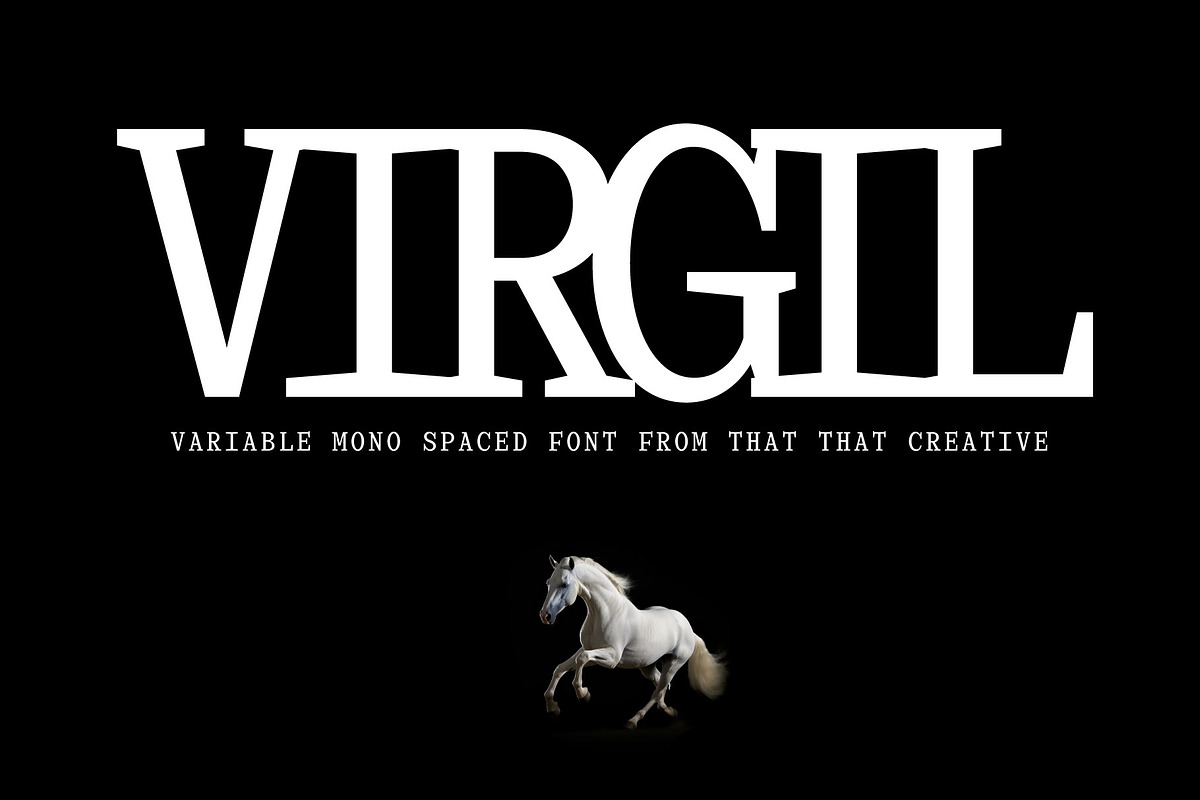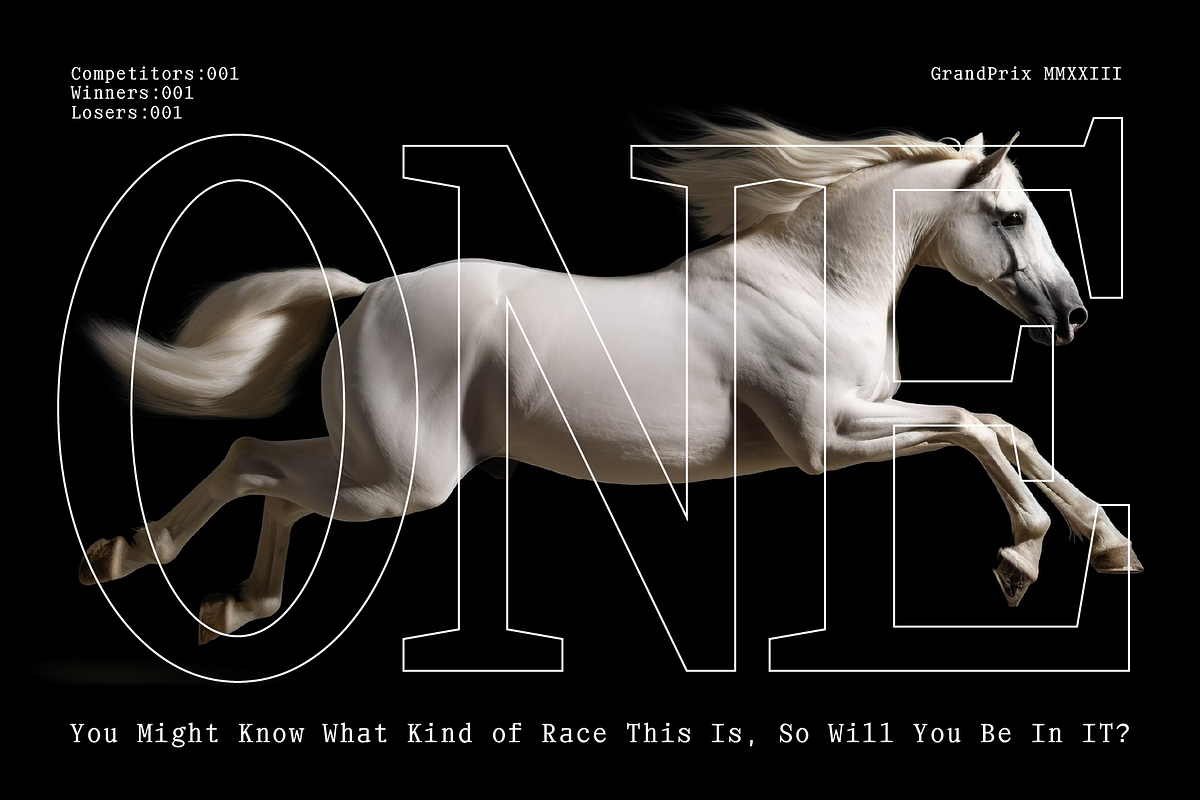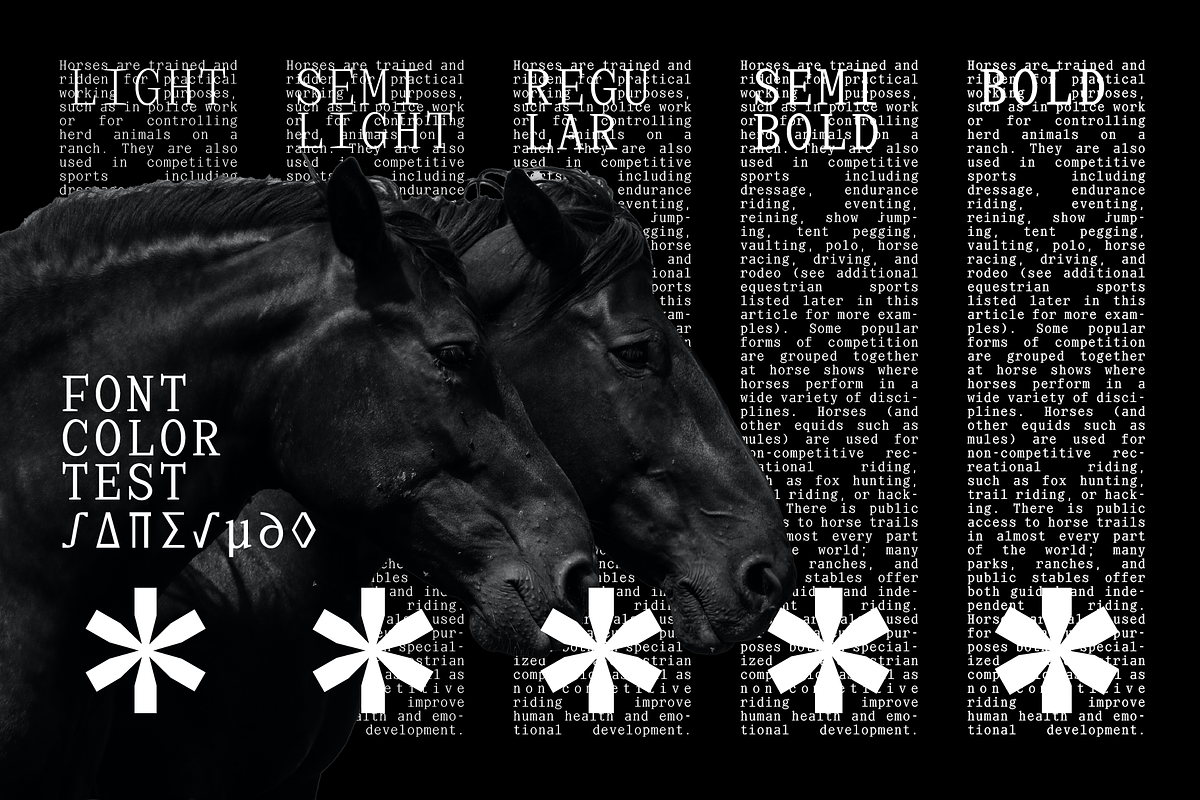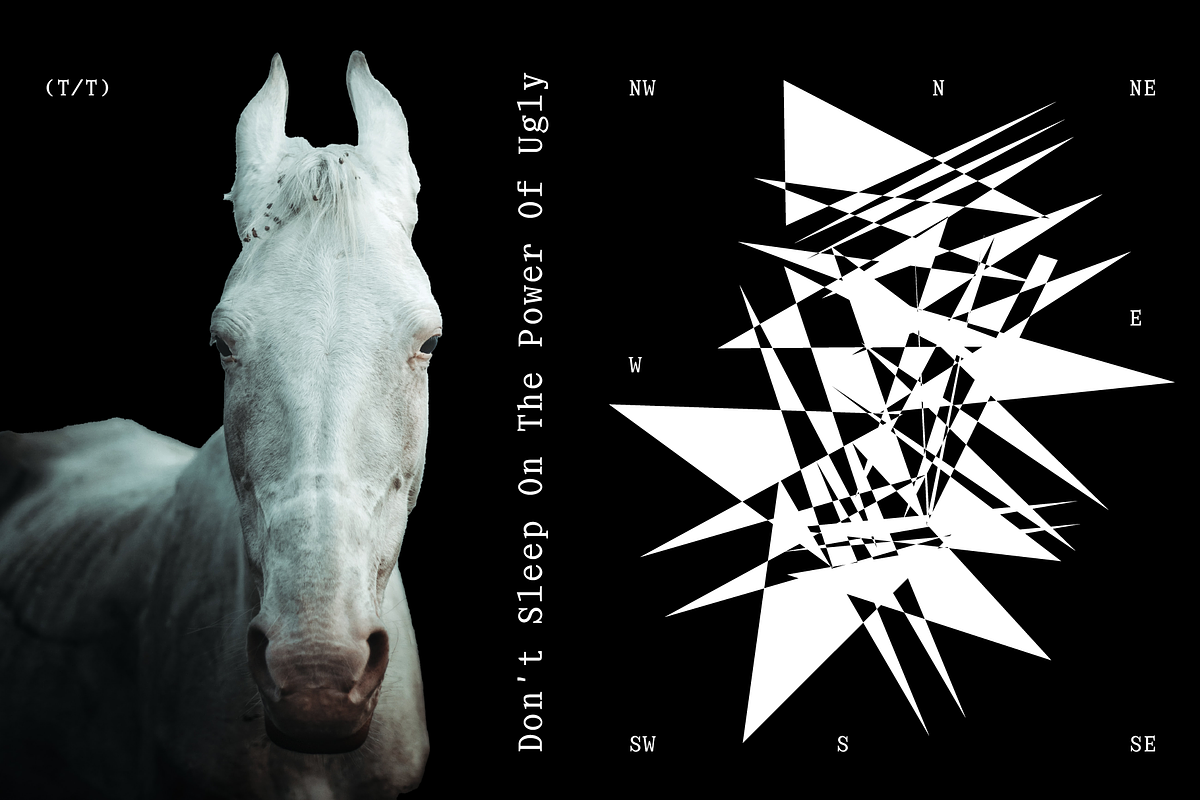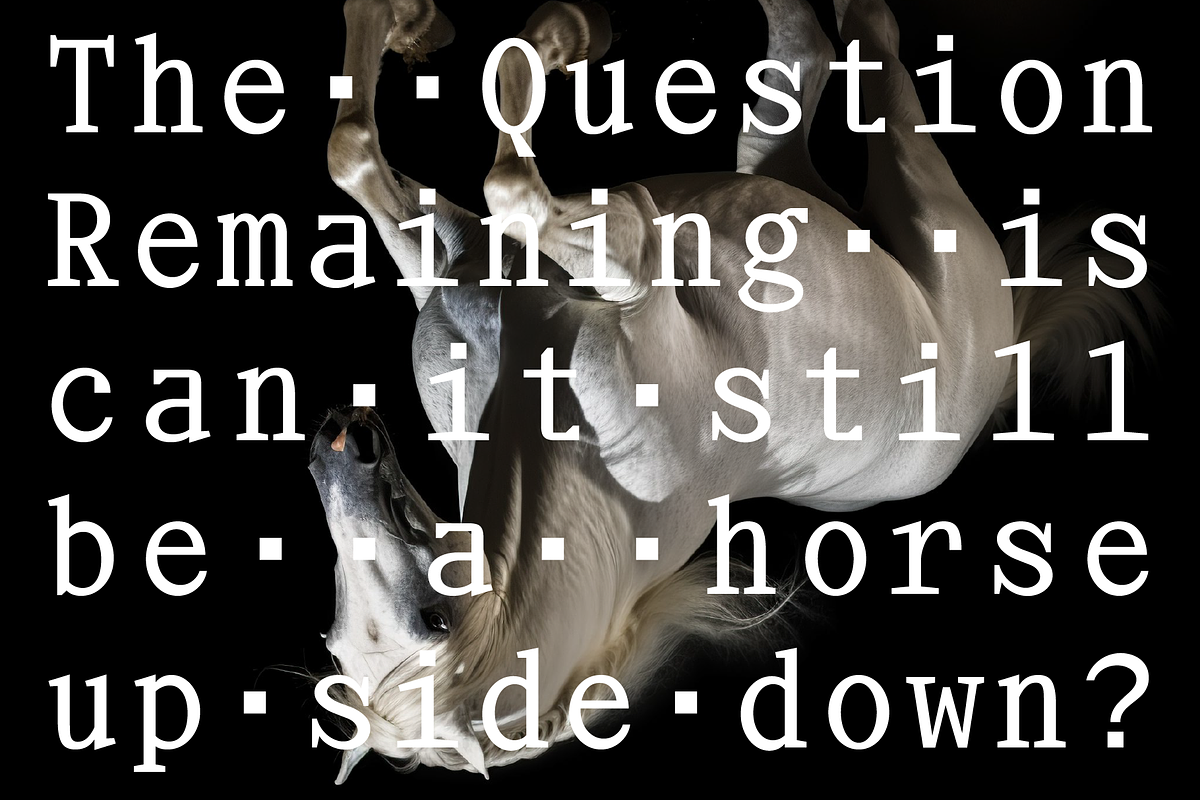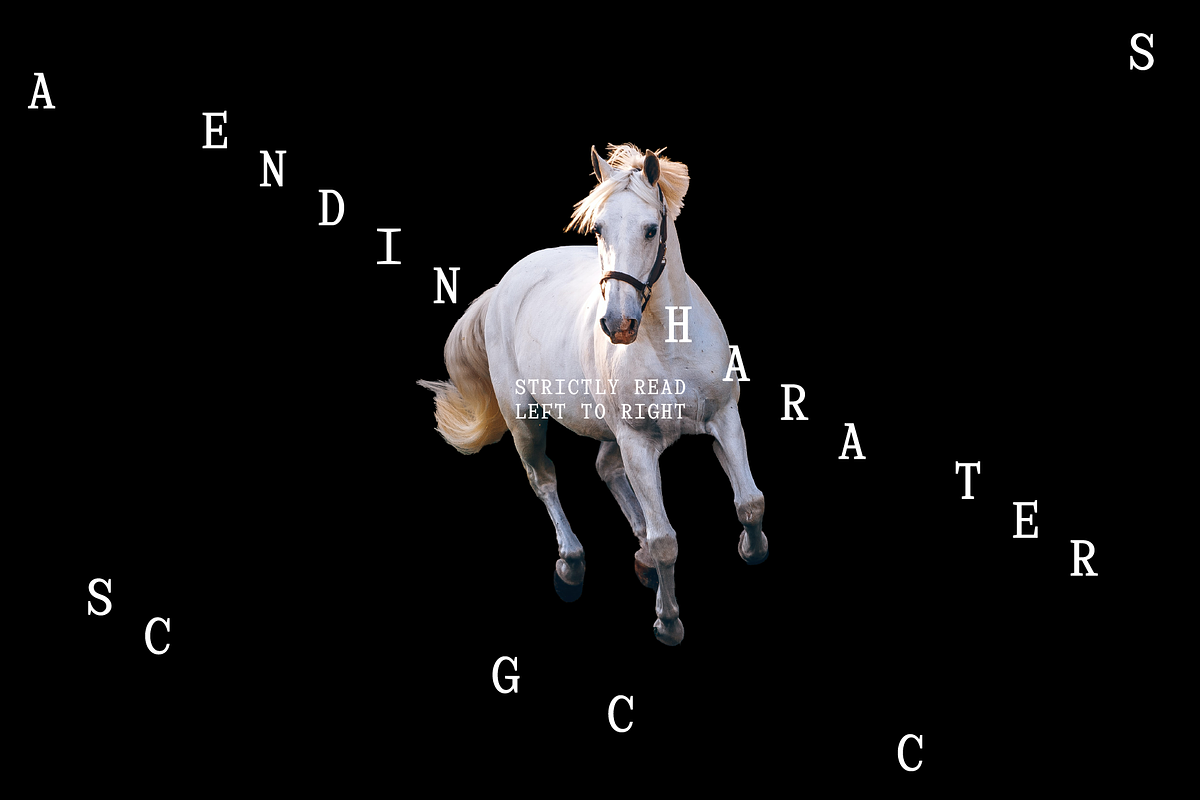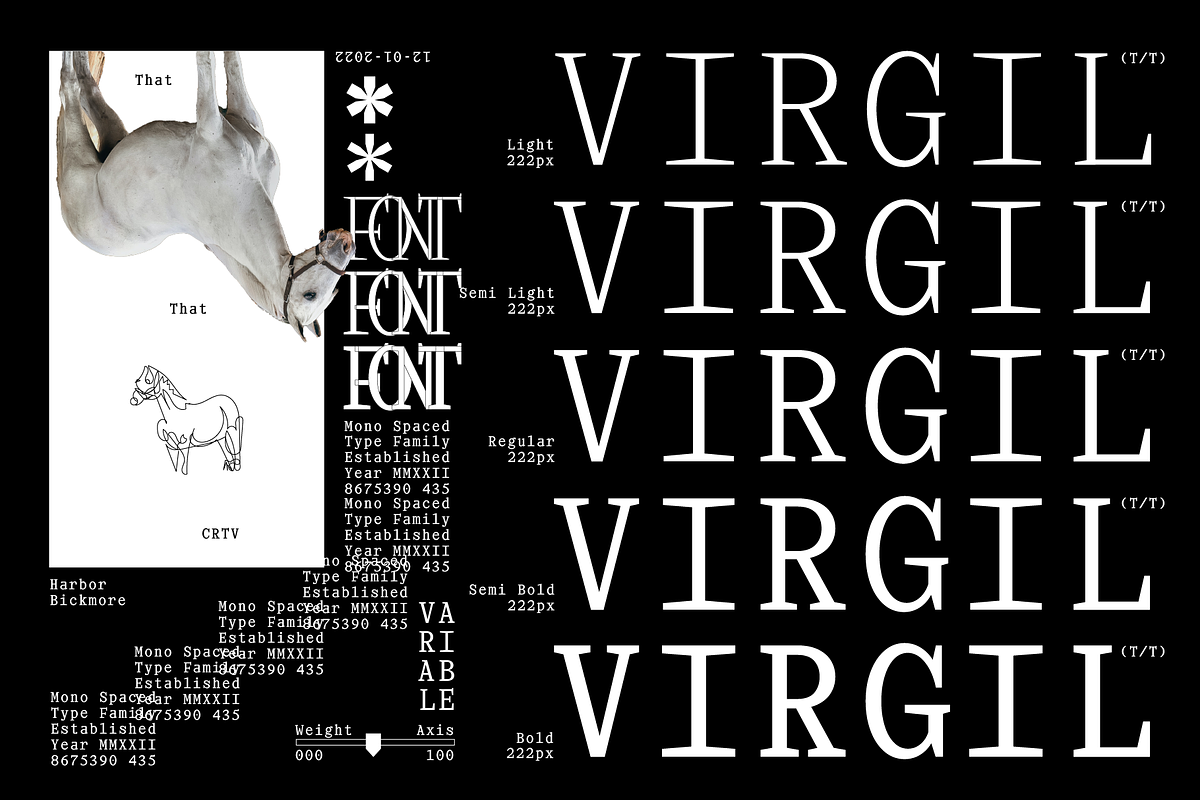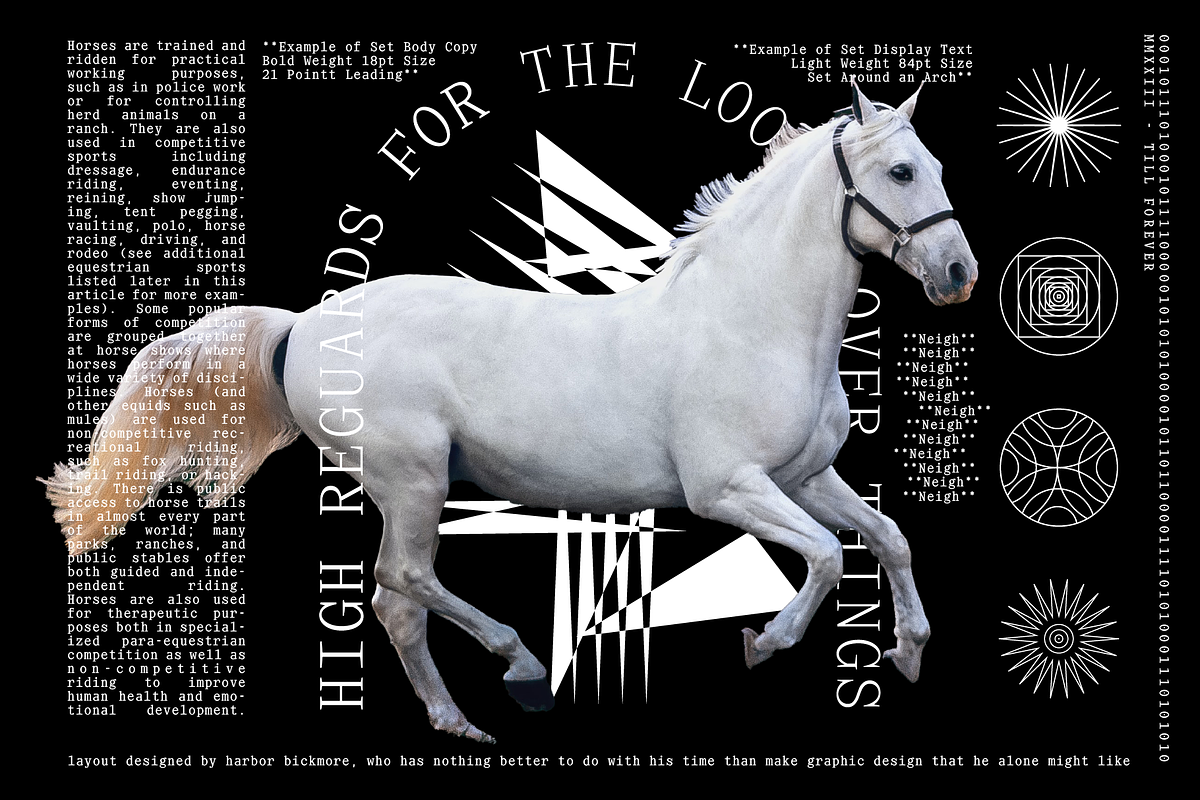
Virgil Monospaced Font
Virgil Mono is a contemporary sharp serif. it is aggressive and holds nothing back. some will love it some will hate it but it will be sure to turn heads. This monospaced variable font is perfect for avant garde design projects that turn their nose up at normal.
- 5 Weights
- Variable font